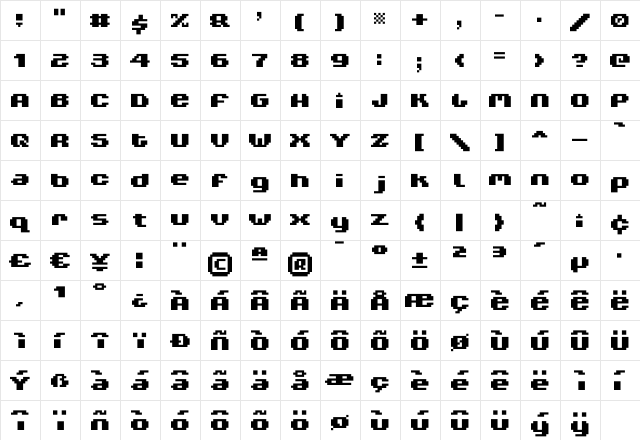
V5 Xtender Regular
Design Context for V5 Xtender Typeface
V5 Xtender offers clean, dependable letterforms without strong stylistic allegiance, making it a practical choice for designers who need flexibility.
Pro Tip: Use V5 Xtender in both headline and body roles to test its range before committing to a single application.